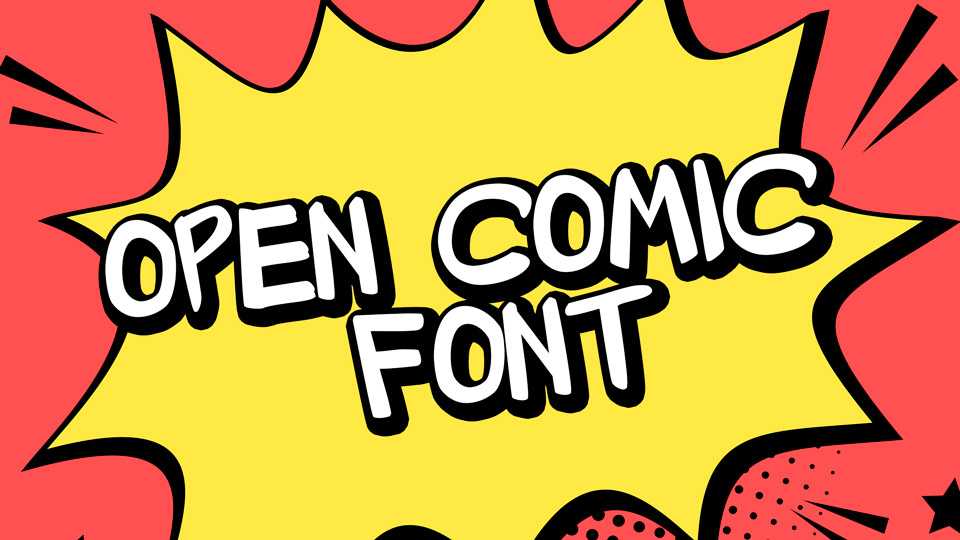
Download Open Comic font, a bold and fun handwritten typeface with tons of impact. Open Comic is a good comic book font that anyone can use for indy comics, professional comics, movies, advertising or any other area .
Designer: Arthur Reeder